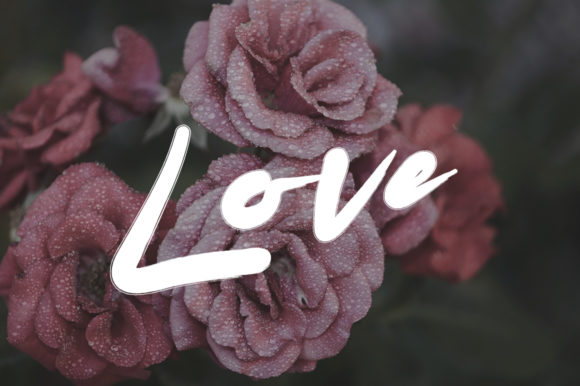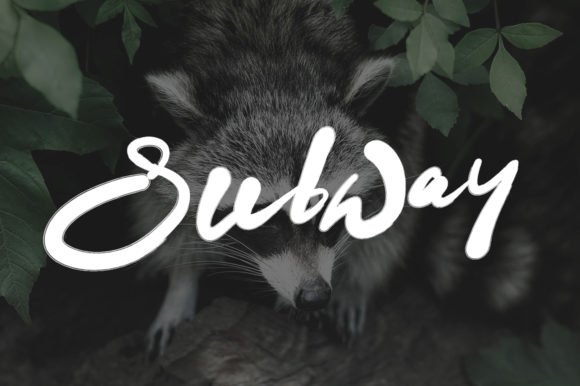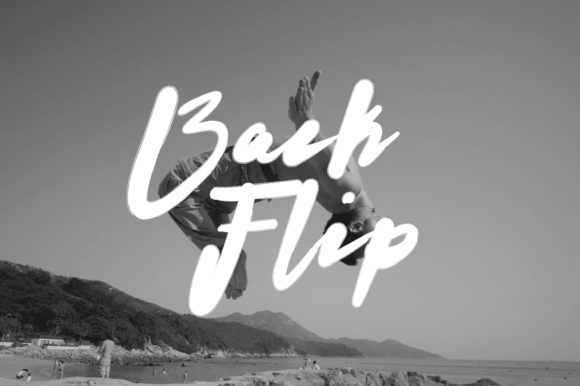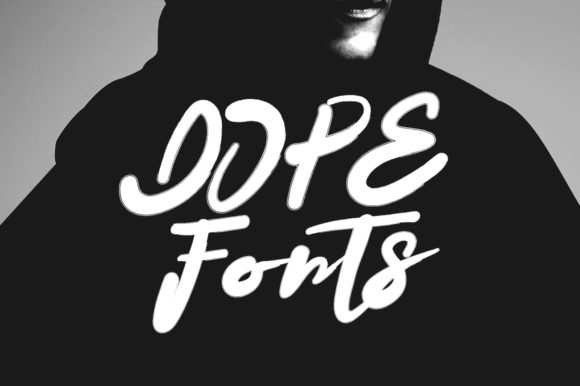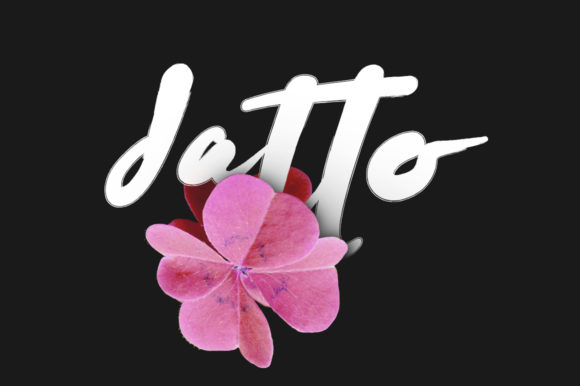
Datto Font: Elevate Your Design with a Unique Handwritten Style
In the world of typography, fonts play a crucial role in making or breaking a design. A well-chosen font can elevate your project, making it more engaging, readable, and aesthetically pleasing. If you’re a designer or crafter looking for a font that brings a touch of classic elegance with a modern twist, look no further than the Datto Font. Inspired by classic typography, Datto brings its own unique style to any design project, making it an excellent choice for a wide range of applications.
The Characteristics of Datto Font
Datto is a fantastic handwritten font that is best suited for headlines of all sizes, as well as for blocks of text that have both maximum and minimum variations. Its versatility makes it an ideal choice for various design projects, including web design, print materials, moving images, and more. Whether you’re creating a logo, brochure, website, or social media graphics, Datto will look spectacular.
What Makes Datto Stand Out?
So, what sets Datto apart from other fonts? Here are a few key features that make it a standout choice:
• Unique Handwritten Style: Datto boasts a distinctive handwritten style that adds a personal touch to any design project.
• Classic Inspiration: Inspired by classic typography, Datto brings a sense of timelessness and sophistication to your designs.
• Versatility: From headlines to body text, Datto performs exceptionally well in various contexts.
• Aesthetic Appeal: Its elegant and flowing lines make it a joy to read and look at.
Using Datto in Different Design Projects
Datto’s versatility is one of its most significant advantages. Here are some ways you can use Datto in different design projects:
Web Design
In web design, typography plays a crucial role in user experience. Datto can be used for:
• Headlines: Grab attention with Datto’s bold and elegant headlines.
• Body Text: Use Datto for paragraphs and other blocks of text for a more personalized feel.
• Call-to-Actions: Highlight important CTAs with Datto’s unique style.
Print Design
In print design, Datto can add a touch of elegance to:
• Logos and Branding: Create a memorable brand identity with Datto.
• Brochures and Flyers: Stand out from the competition with Datto’s distinctive style.
• Posters and Advertisements: Make a bold statement with Datto.
Moving Images and Animations
Datto’s flowing lines and elegant curves make it perfect for:
• Animated Logos: Bring your logo to life with Datto.
• Title Sequences: Add a touch of sophistication to your title sequences.
• Motion Graphics: Use Datto to create visually appealing motion graphics.
Tips for Using Datto Effectively
To get the most out of Datto, here are some tips:
• Experiment with Sizes: Play around with different font sizes to find the perfect balance for your design.
• Mix and Match: Combine Datto with other fonts to create a unique typography system.
• Pay Attention to Line Spacing: Ensure your text is readable by adjusting line spacing accordingly.
In conclusion, Datto Font is an excellent choice for designers and crafters looking to add a touch of classic elegance with a modern twist to their design projects. Its unique handwritten style, versatility, and aesthetic appeal make it perfect for a wide range of applications. Whether you’re working on a web design, print materials, or moving images, Datto is sure to elevate your design and make it more engaging and readable.